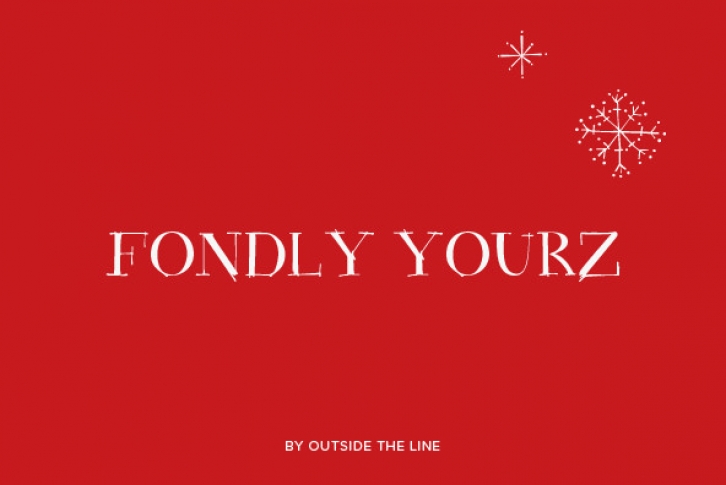
Fondly Yourz is a less than serious, hand drawn serif font. This headline font has nice thick and thin lines. Pair it with a sans serif font for body copy for a fresh contemporary look.